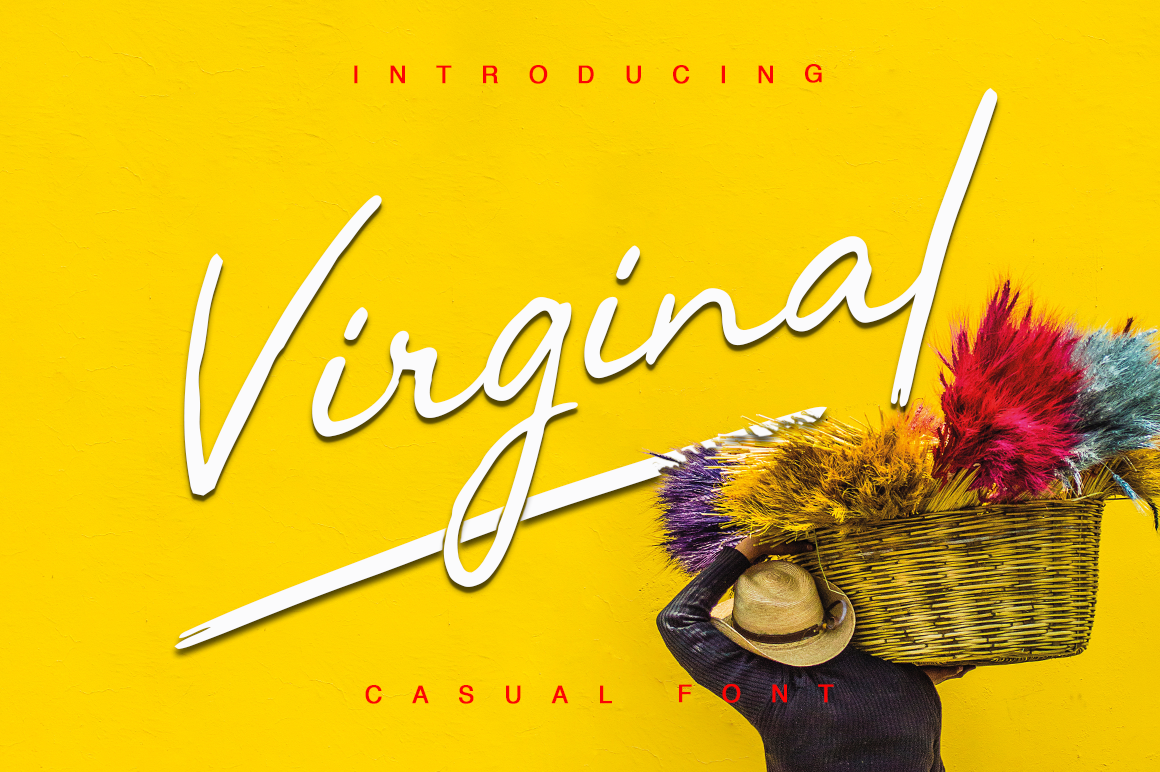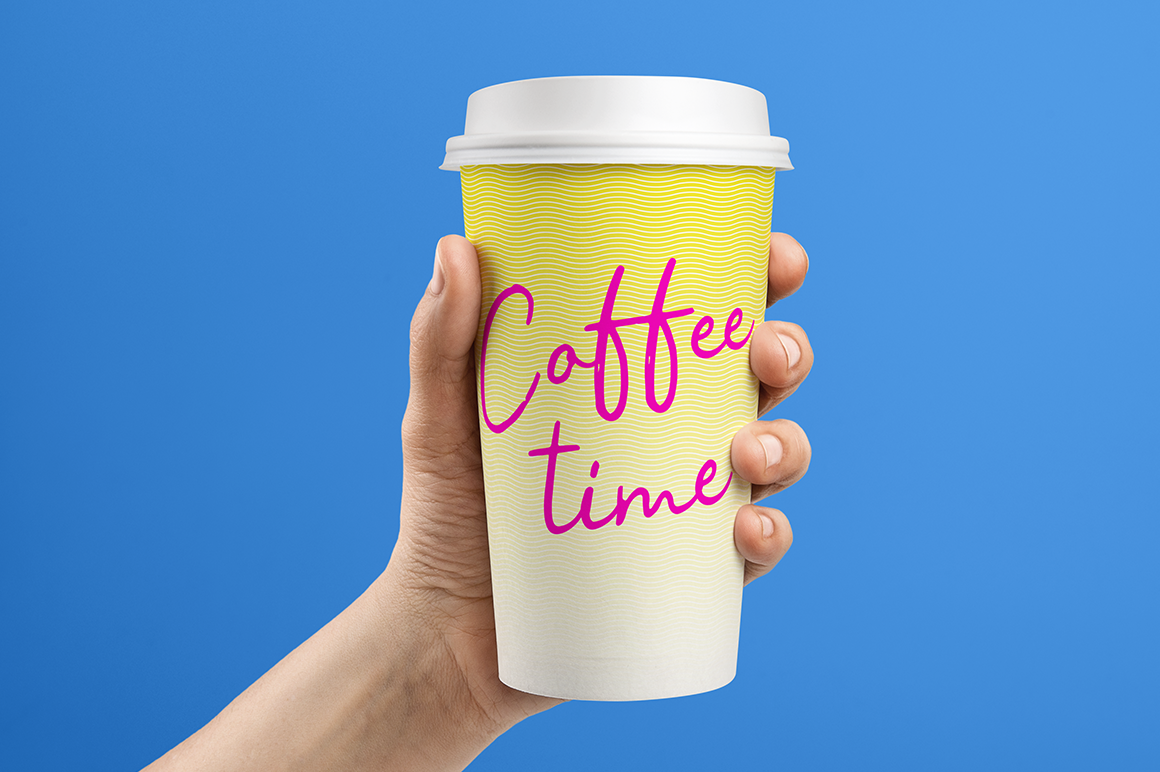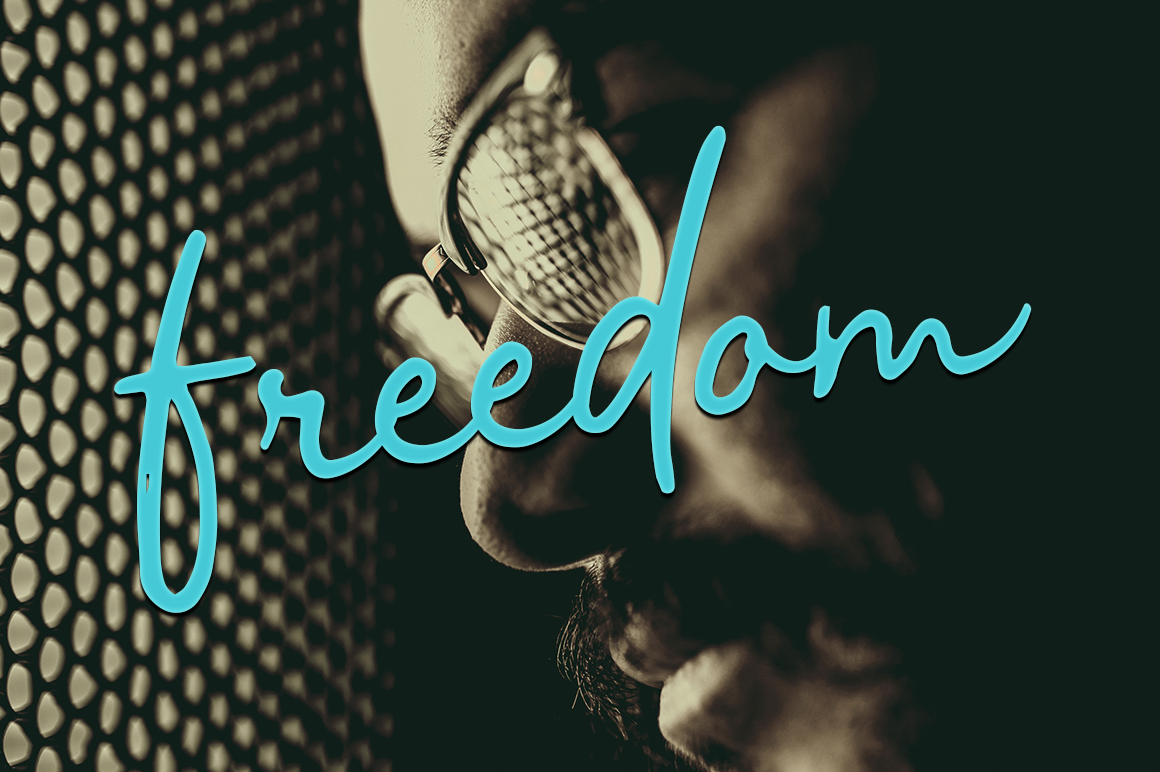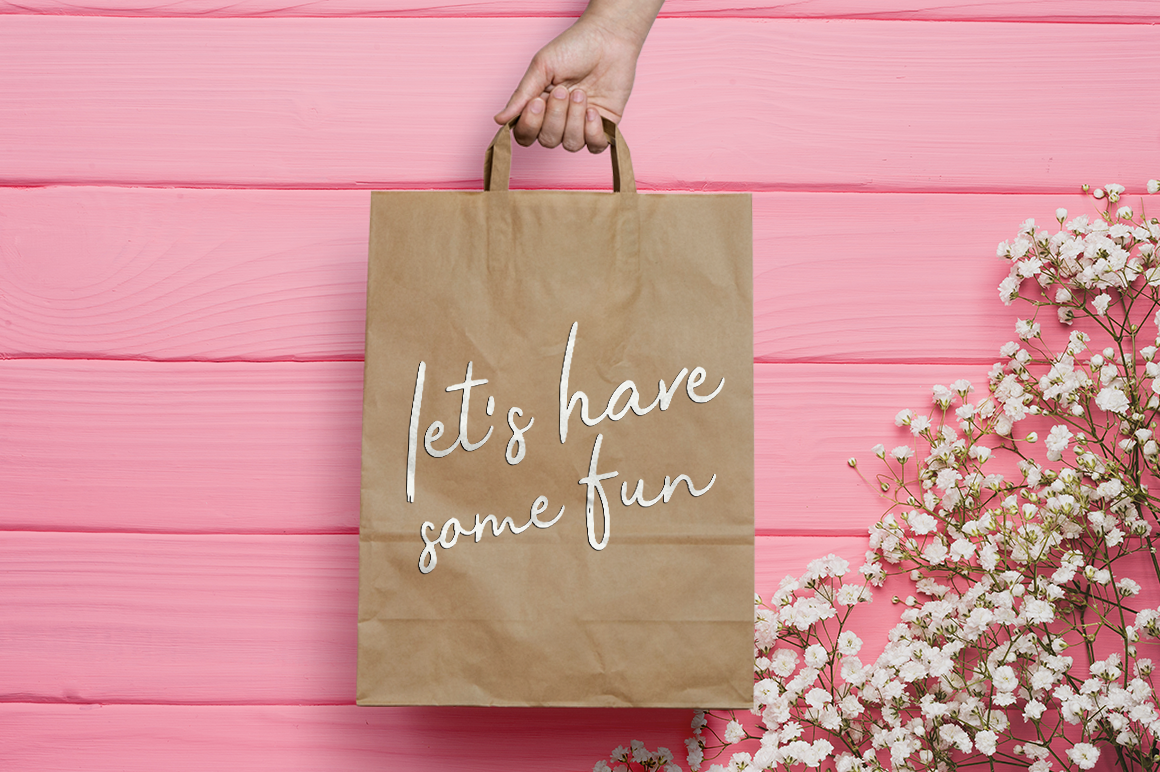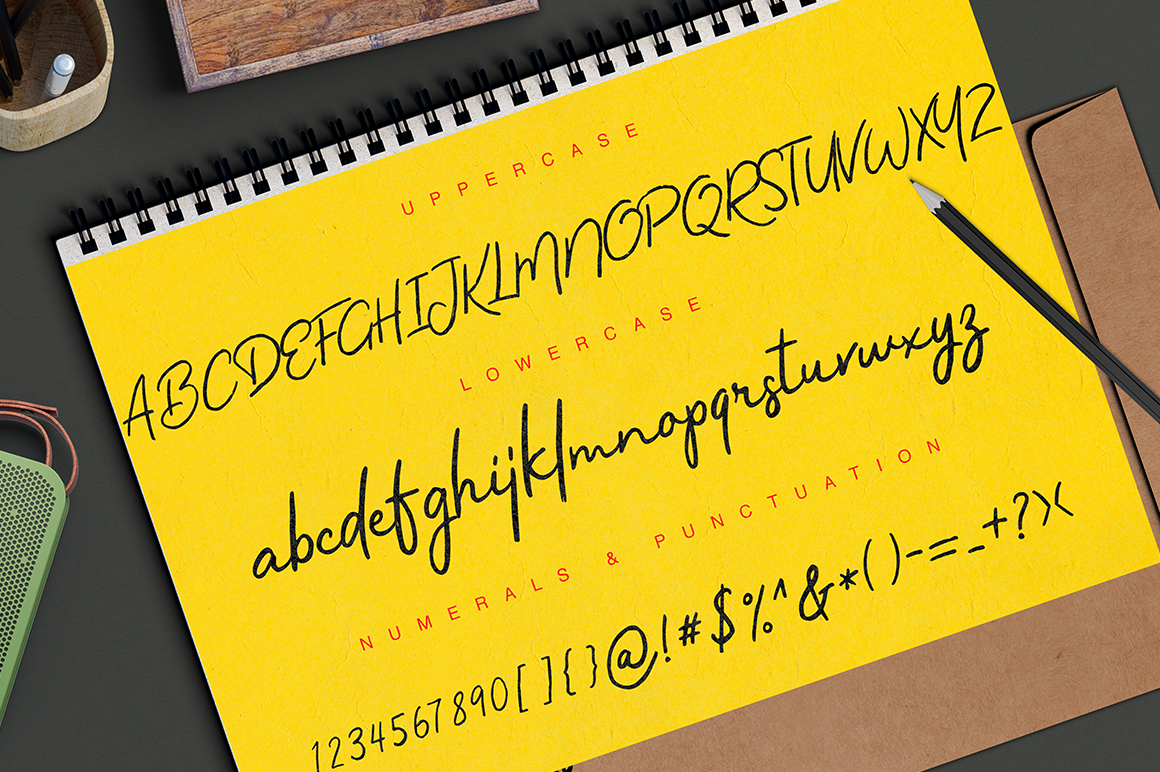
Virginal Font
About Virginal Font
Virginal is a stunning handwritten calligraphy-style font. This dynamic script can be used for personal design as well as branding projects.